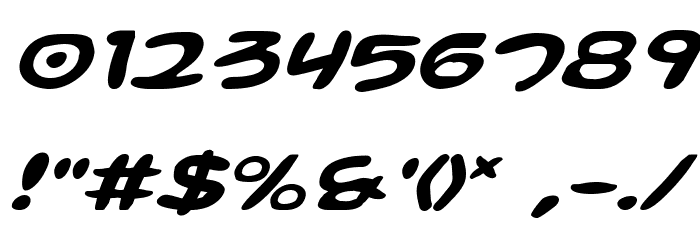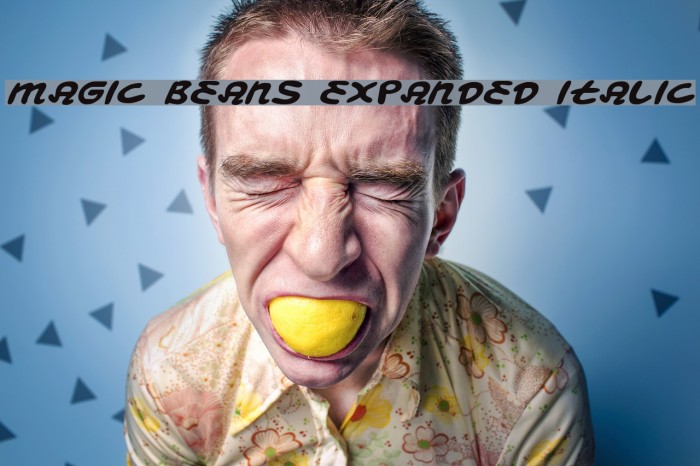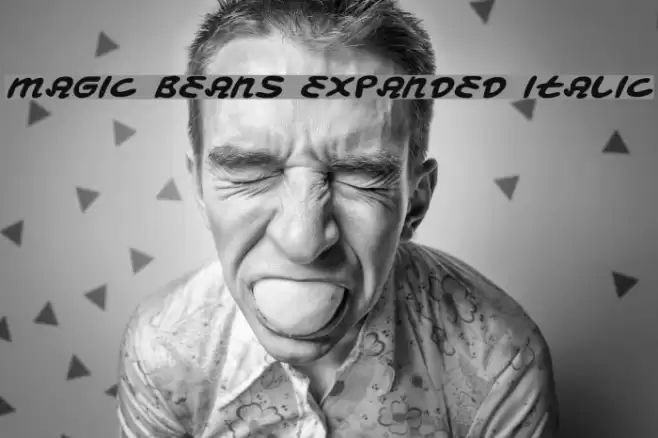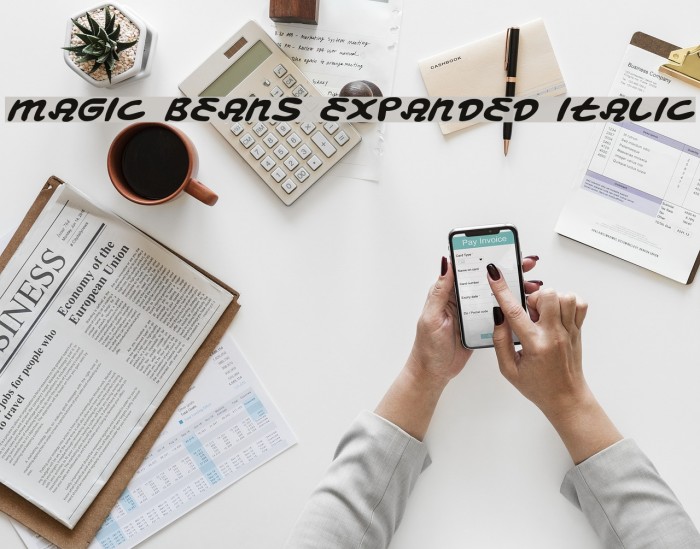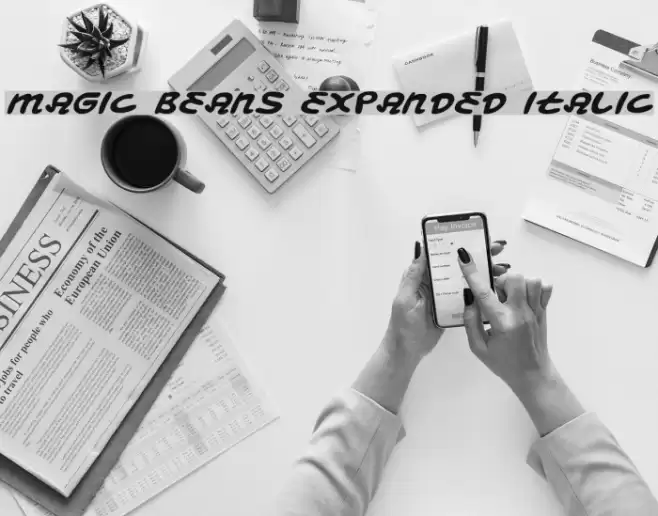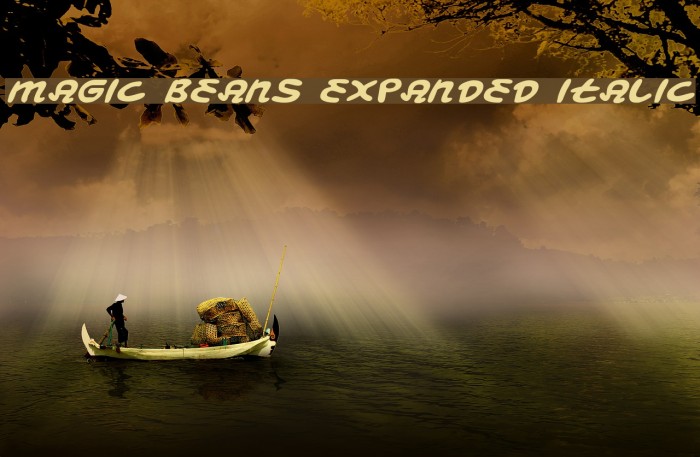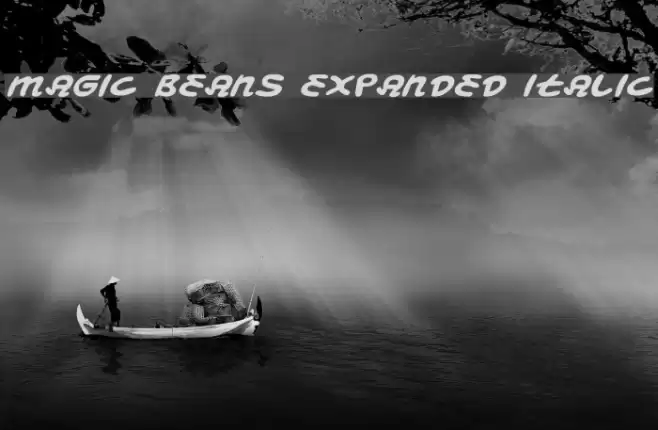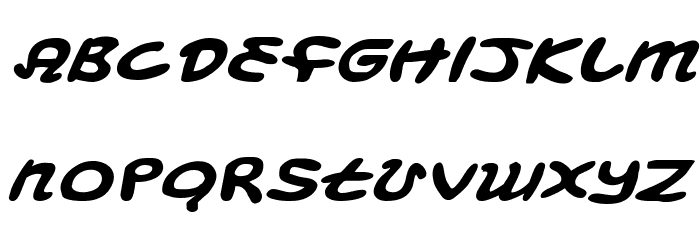
Magic Beans Expanded Italic Font
Magic Beans Expanded Italic Description
This font features a playful and dynamic style with a distinct italic slant, giving it a sense of motion and energy. The characters are bold and rounded, with a smooth flow that suggests a handwritten quality. The expanded width of the letters enhances readability while maintaining a unique, artistic flair. The font includes a full set of uppercase and lowercase letters, numerals, and a variety of special characters, making it versatile for different design needs. Its bold strokes and consistent weight contribute to a strong visual impact, suitable for eye-catching headlines or creative branding projects.
| Overall Style | Playful, Energetic, Handwritten |
| Use Case | Headlines, Logos, Creative Branding |
| Proposed Projects | Ideal for creative branding, playful headlines, children's books, or any project needing a lively and energetic typeface. |